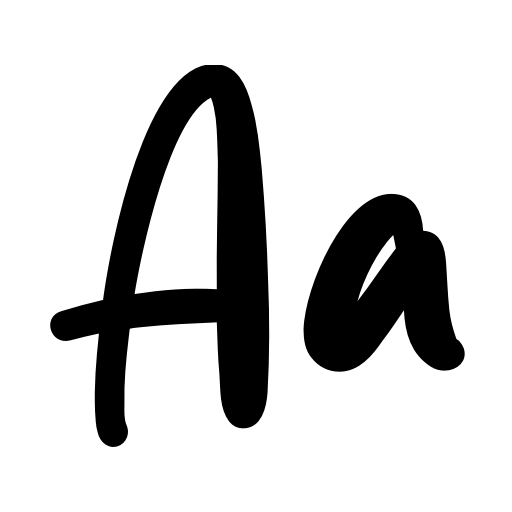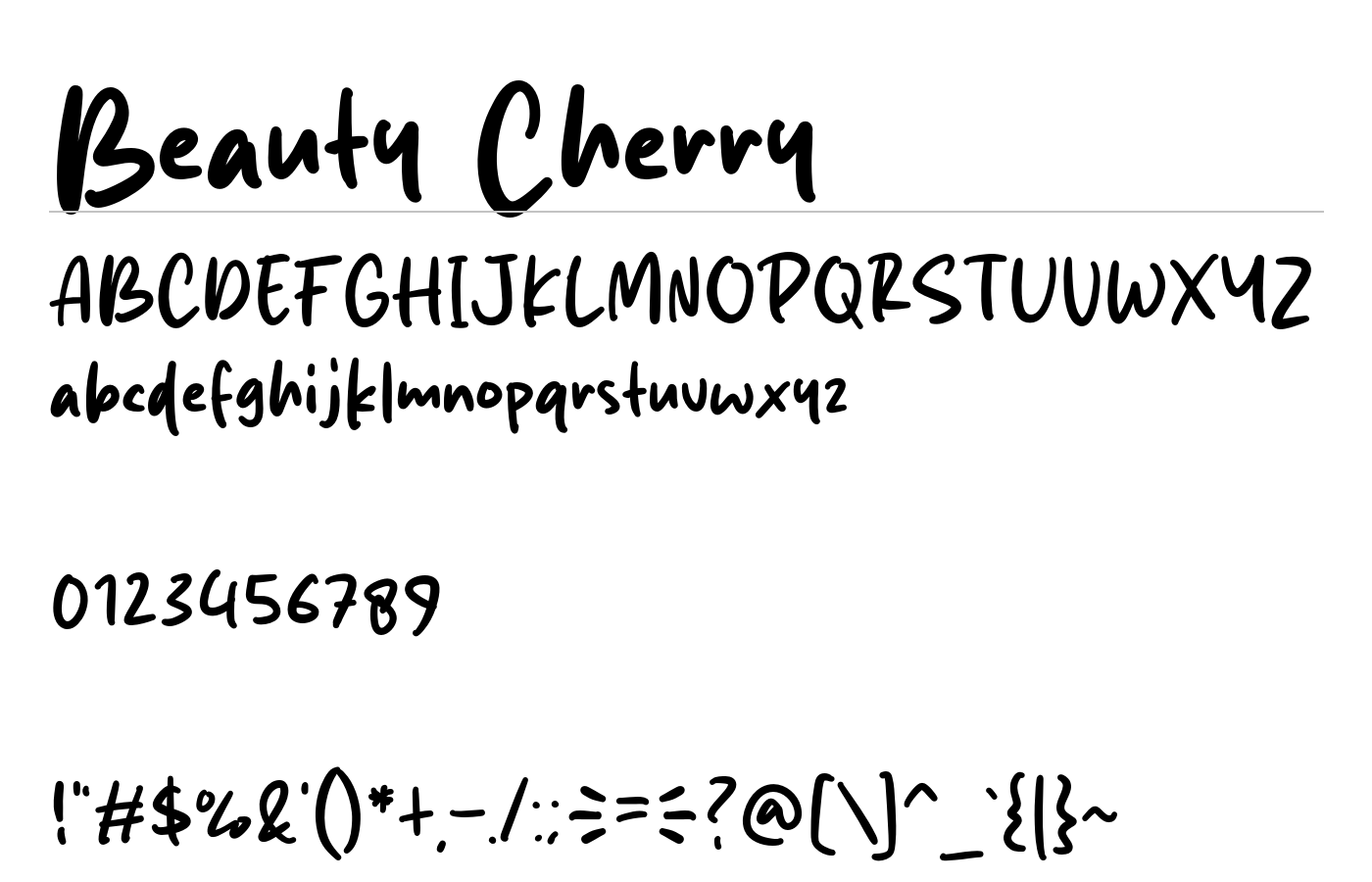
Beauty Cherry is a playful and casual handwritten font with a friendly, organic feel. Its smooth, rounded strokes and varying weights give it a warm, approachable personality, making it ideal for creative projects, branding, and designs that seek a personal touch. This font works beautifully for logos, invitations, and social media graphics where a lively and informal style is desired.
Beauty Cherry Font
| Designer | (Origin Type) www.originfonts.com |